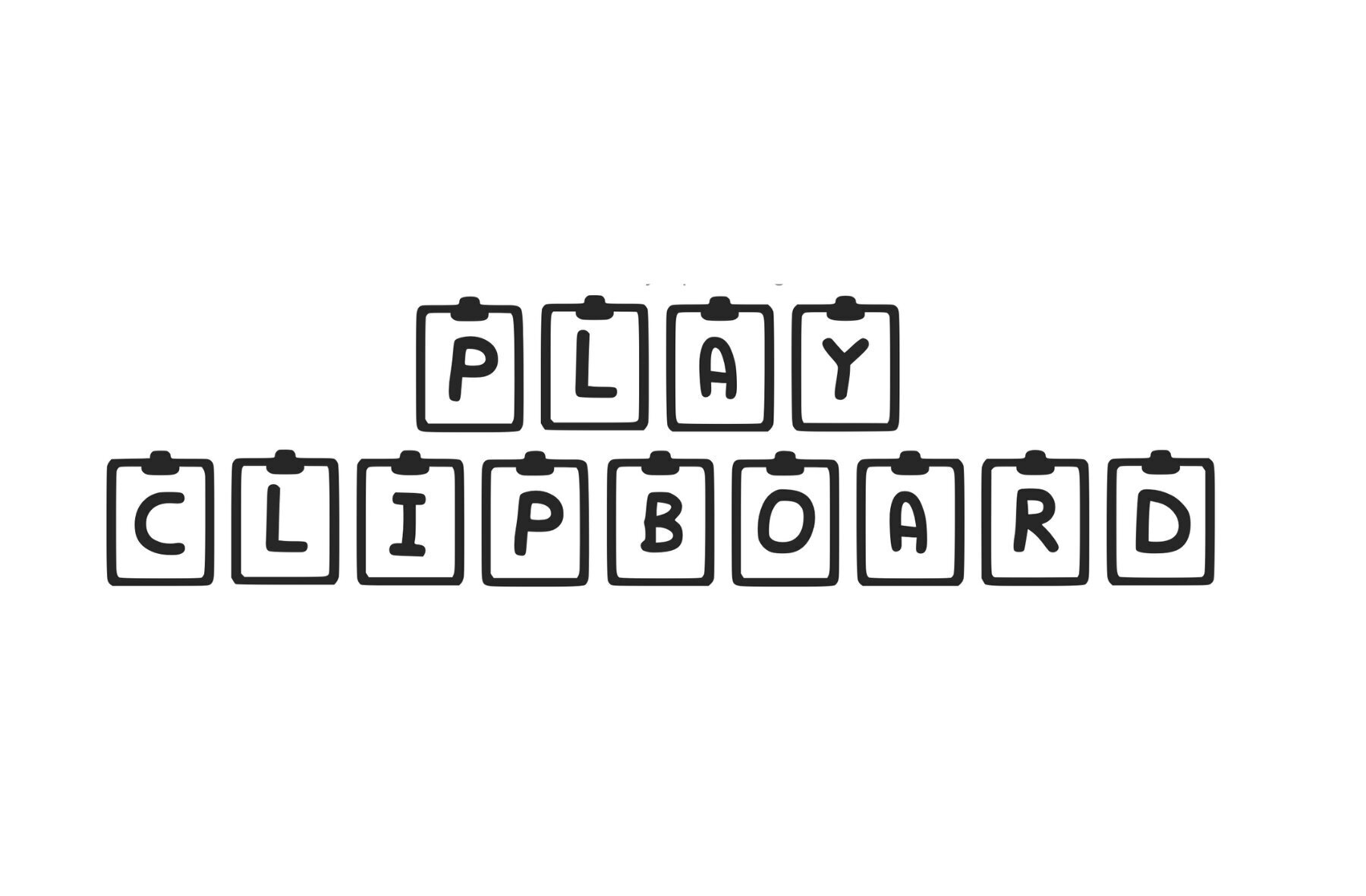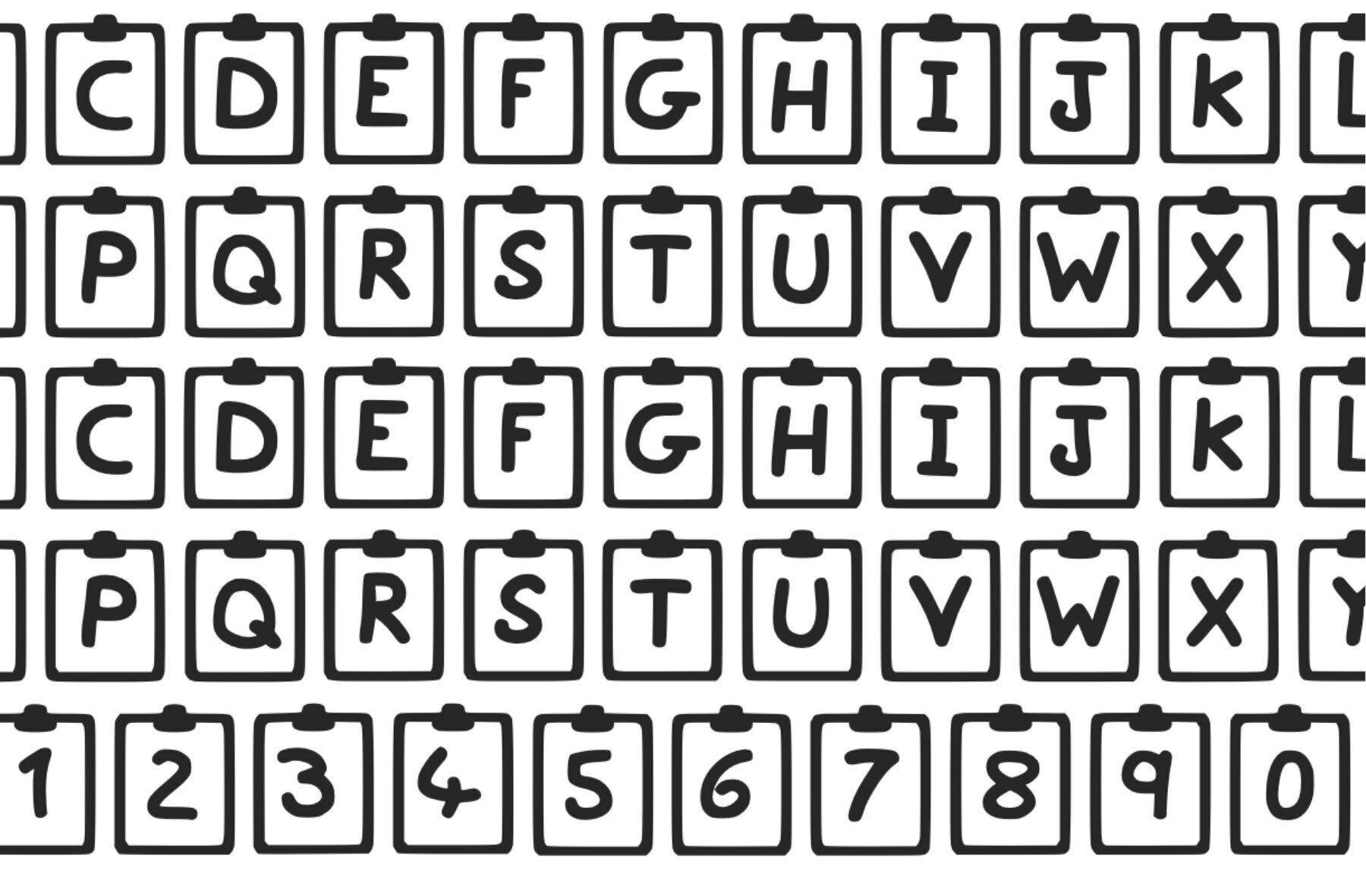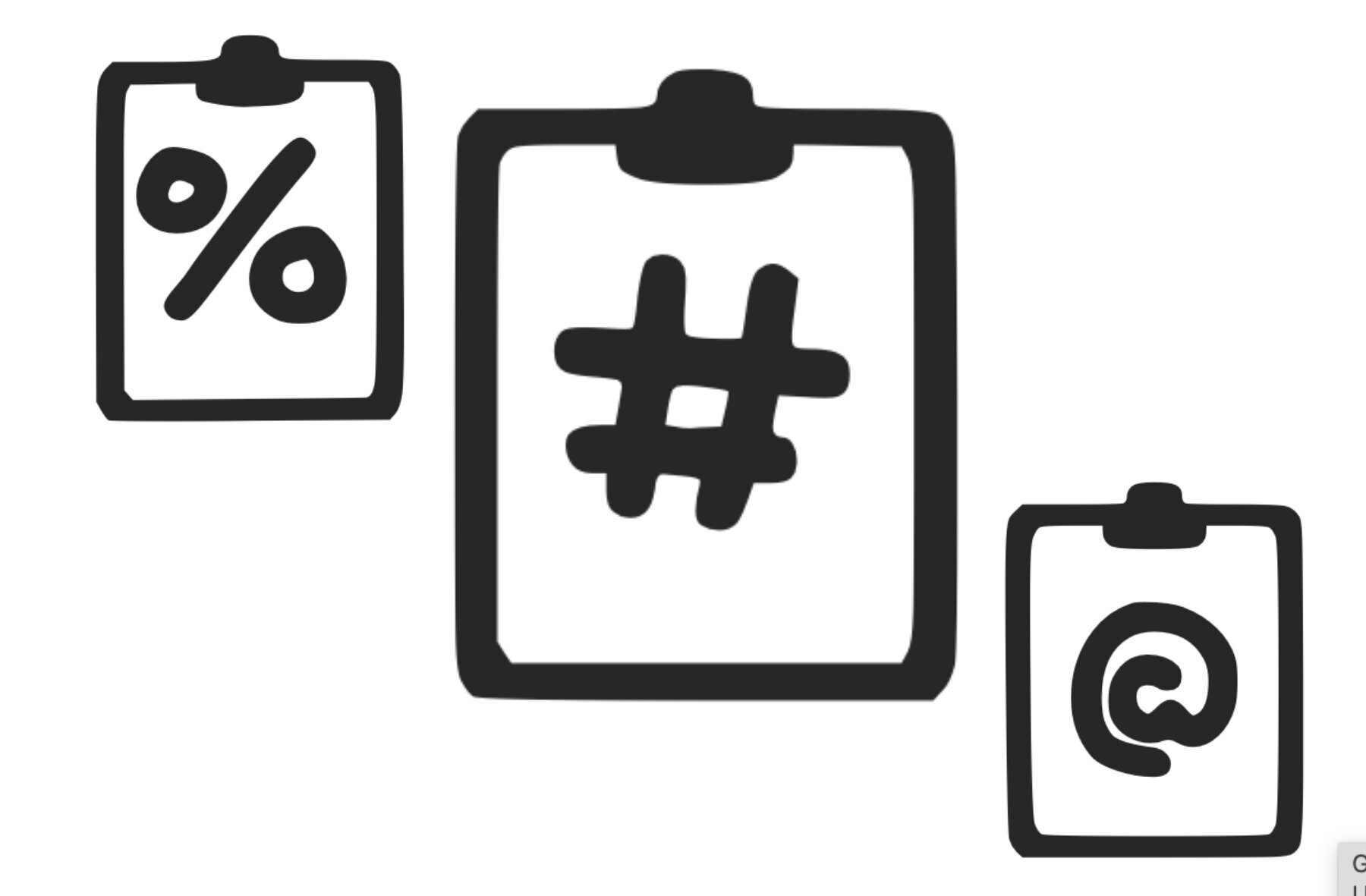
Play Clip Board Font
Play Clipboard Regular
Elevate your space with the whimsical charm of the Play Clip Board, featuring a delightful Comic Sans-inspired typeface atop a handy clipboard. This unique piece serves both as a playful decor element and a practical organizational tool. Whether stationed on your desk or hung on the wall, it adds a touch of fun while keeping your notes and reminders visible and accessible.Play Clip Board